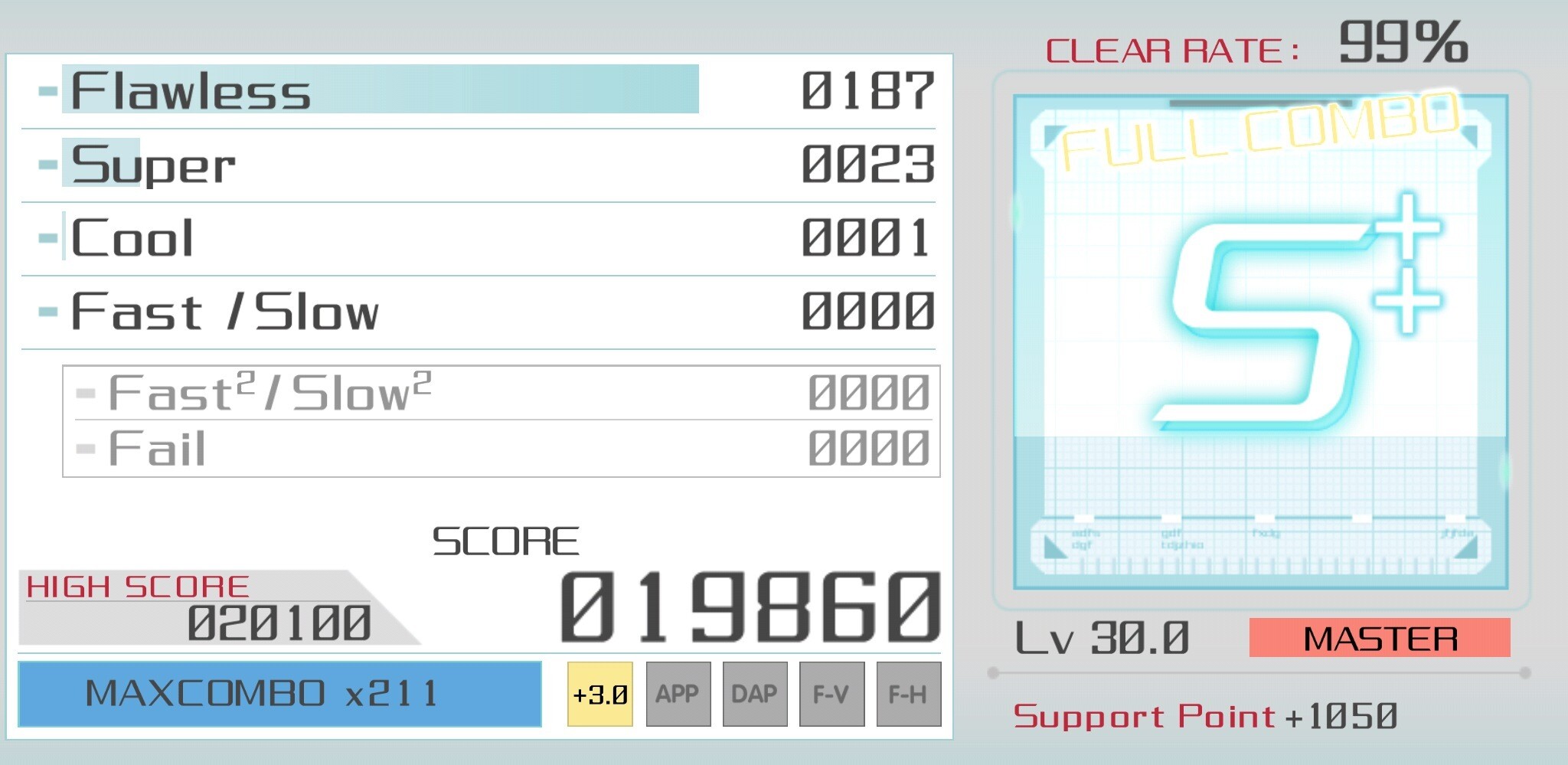
Anyone know what font is used for this interface?
I found it within the font: Founder Corporation/FZZhongQian-M16T
I didn’t find the numbers however so I may not have it right.
I found FZ Cu Qian M17 (also by Founder) but neither of these fonts has a slanted end to the horizontal strokes, and the base of the ‘a’ is not flat. The thick/thin pattern of the ‘w’ is also different, and the numerals lack those distinctive square corners at upper right and lower left.
The mentioned font is somewhat similar.
I have a feeling this may have been a custom type modified from existing font.